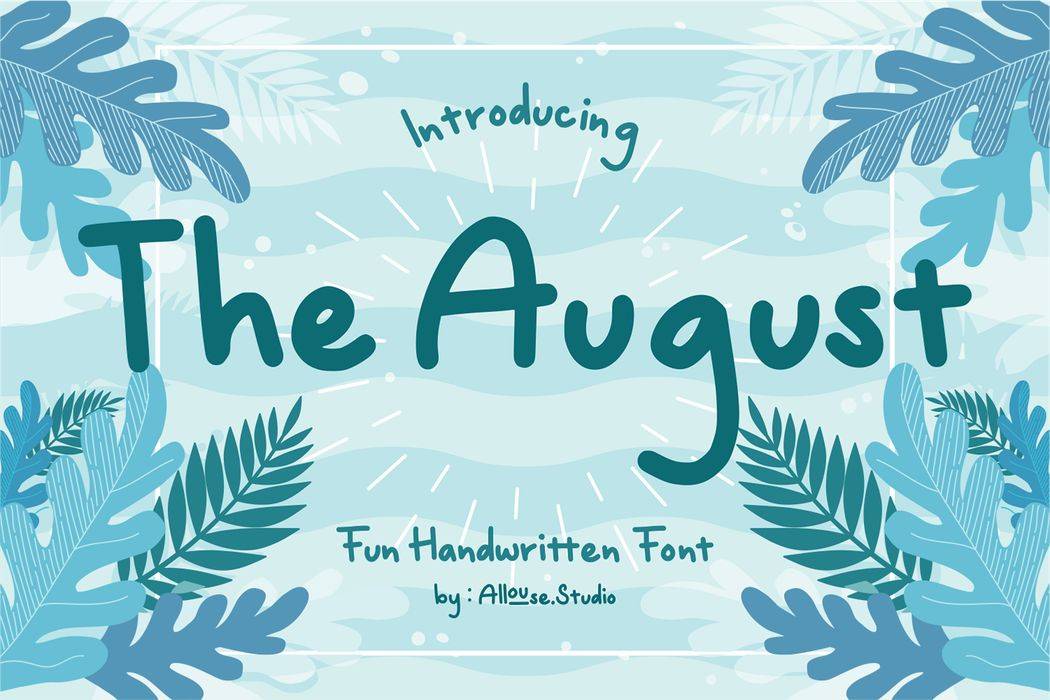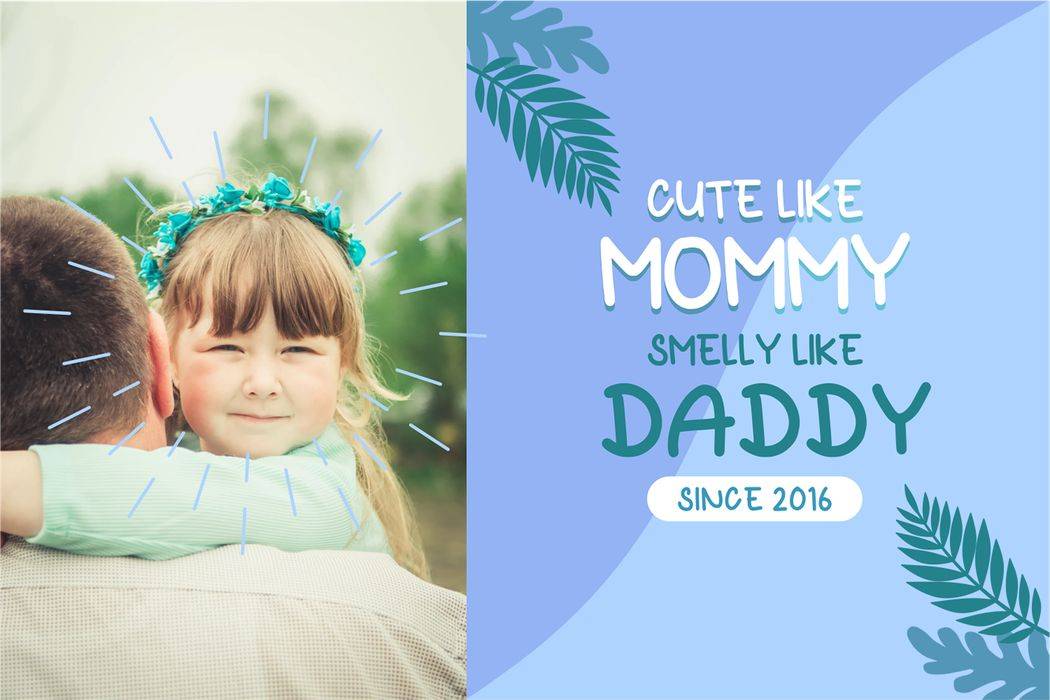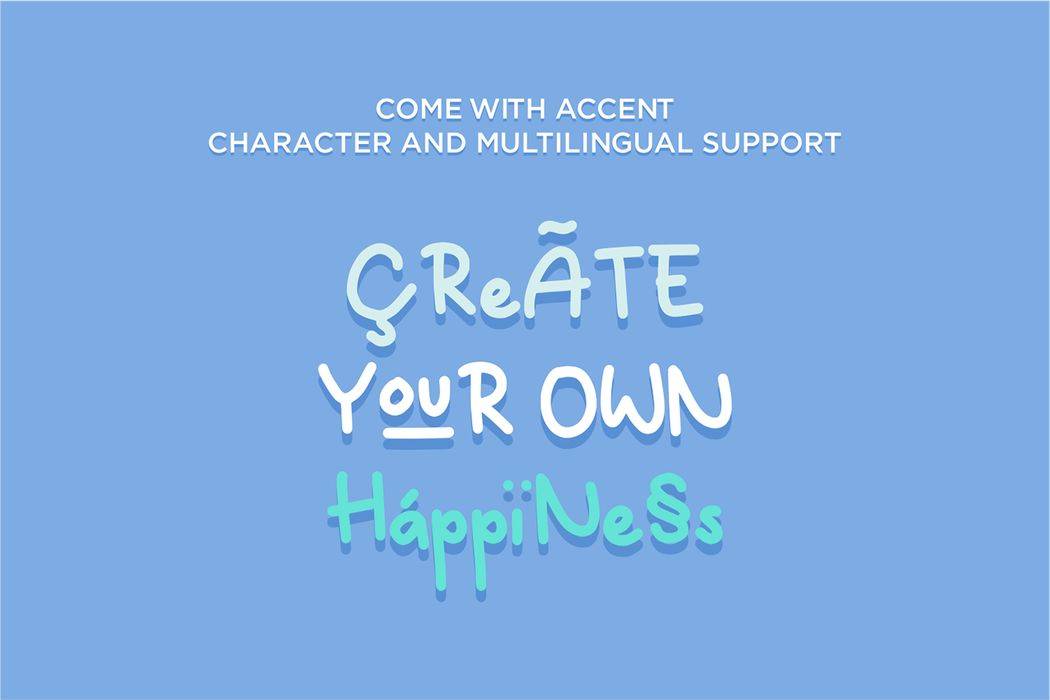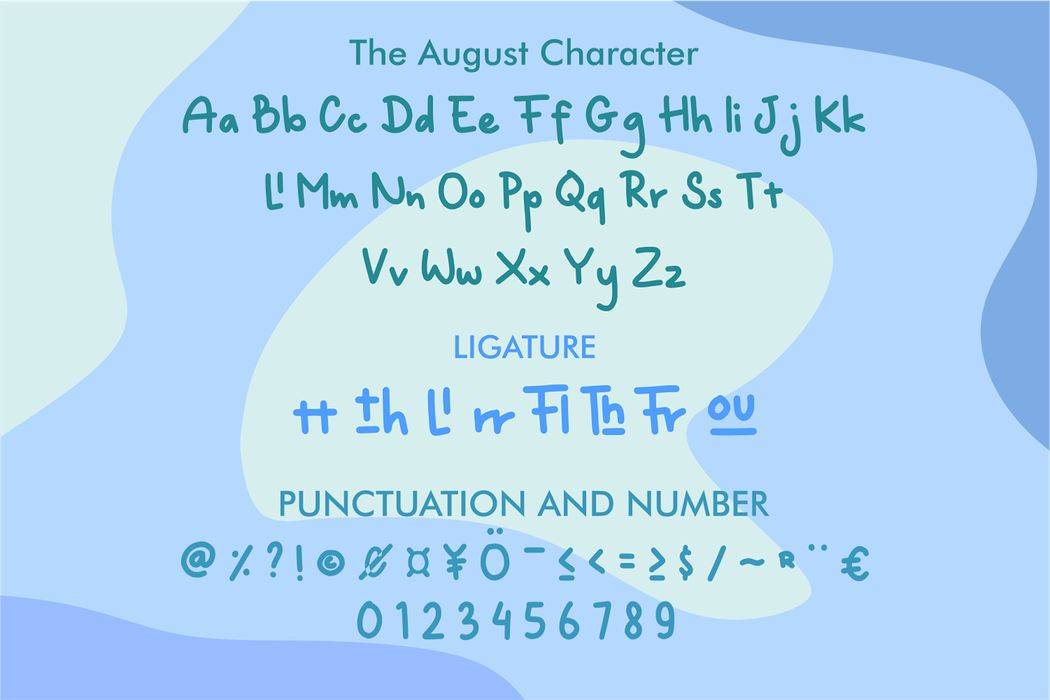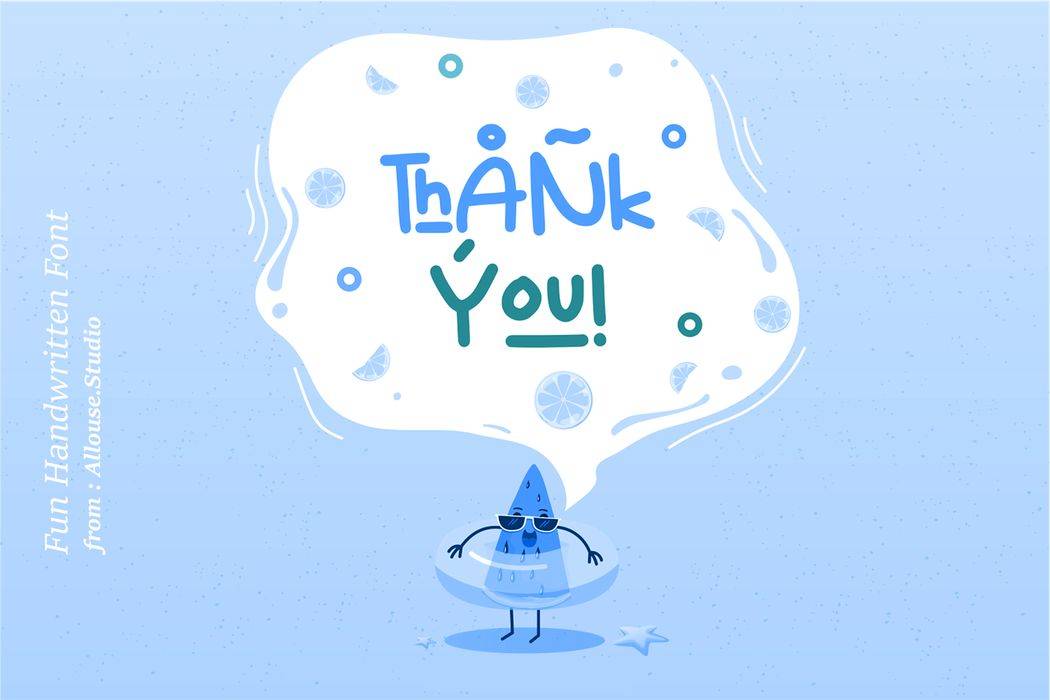
The August Font is a playful, handwritten sans serif typeface with an informal and friendly character. It features rounded, slightly irregular strokes that give it a natural, casual feel, making it ideal for creative projects, children’s materials, and approachable branding. Its clean and legible design works well for headlines, invitations, and any context where a warm, personal touch is desired.
The August Font
About The August Font